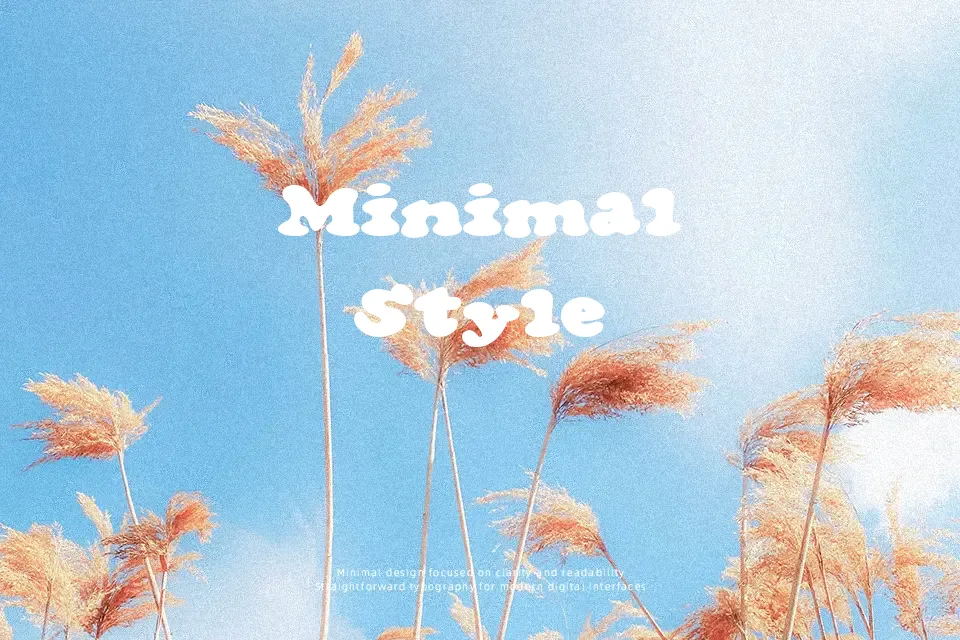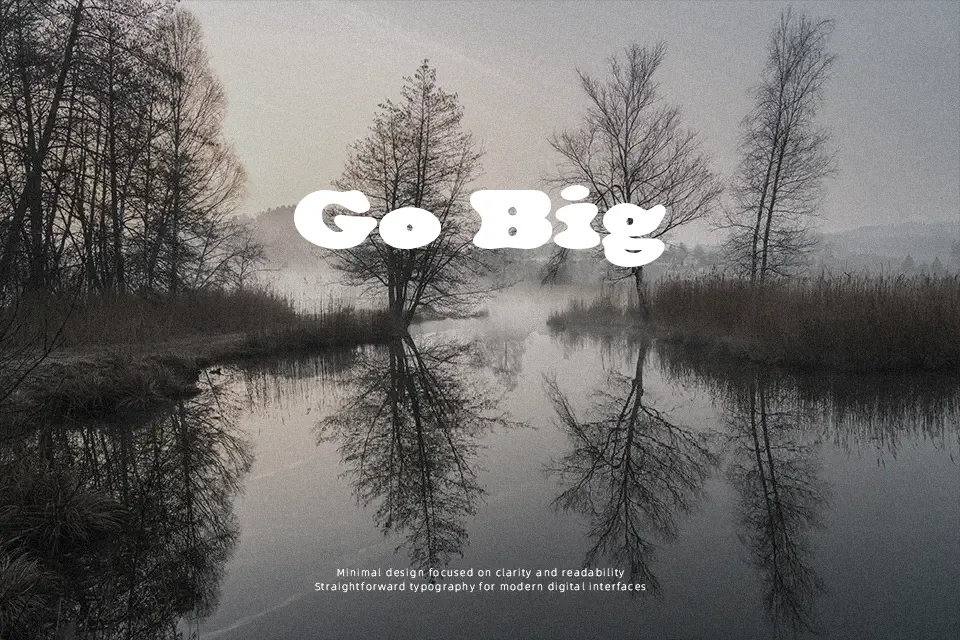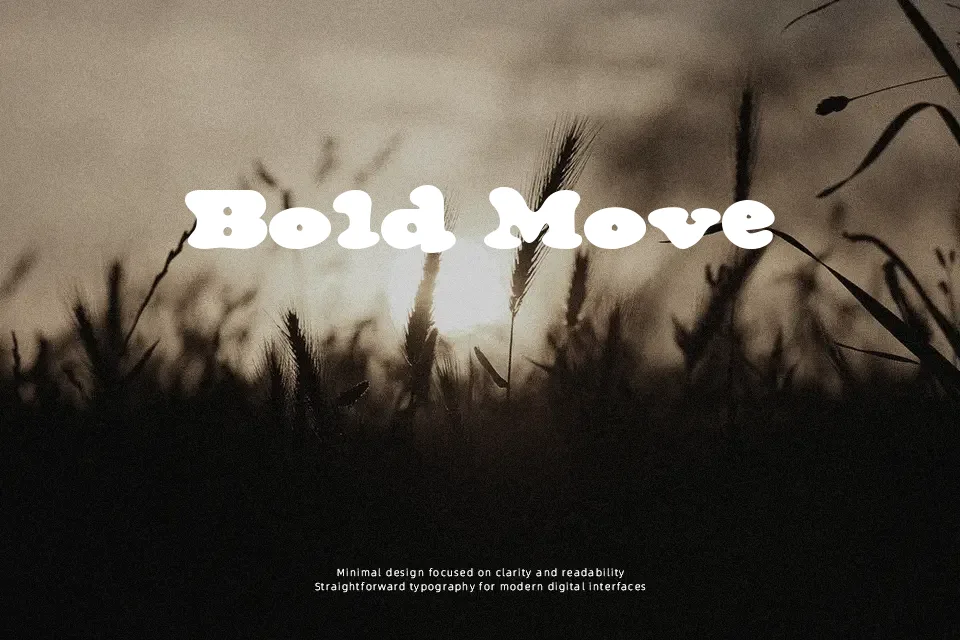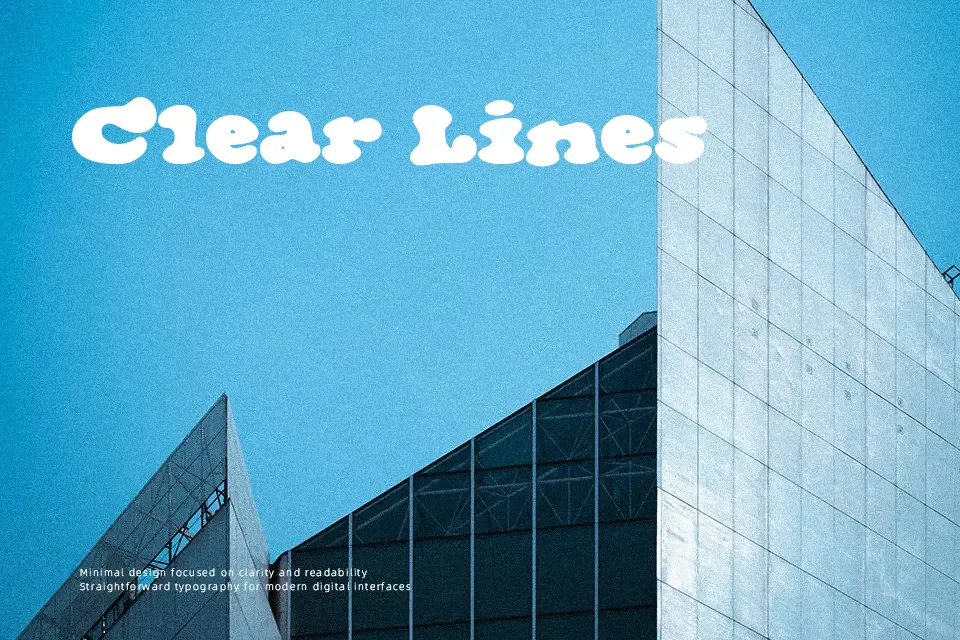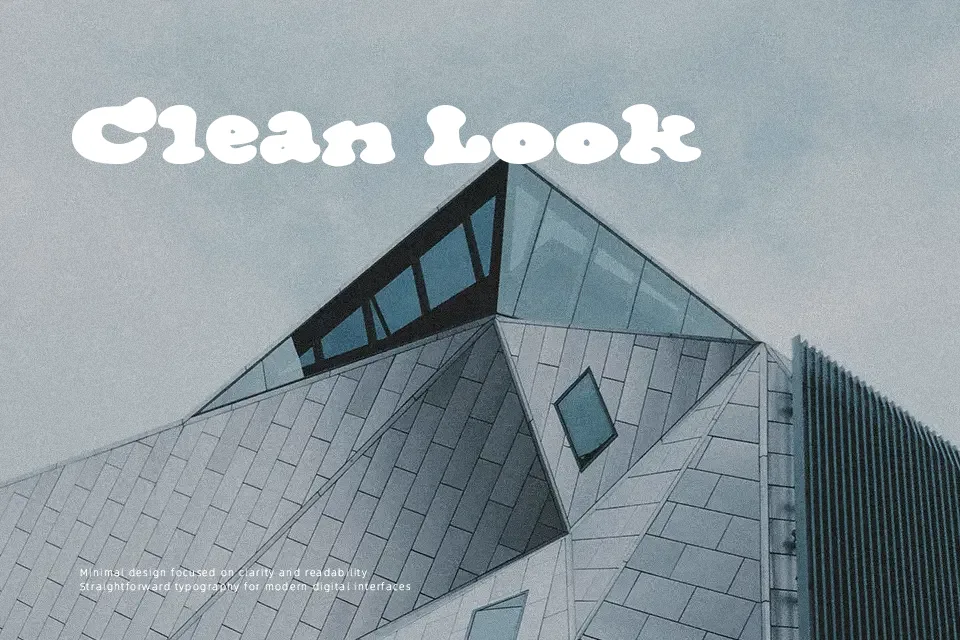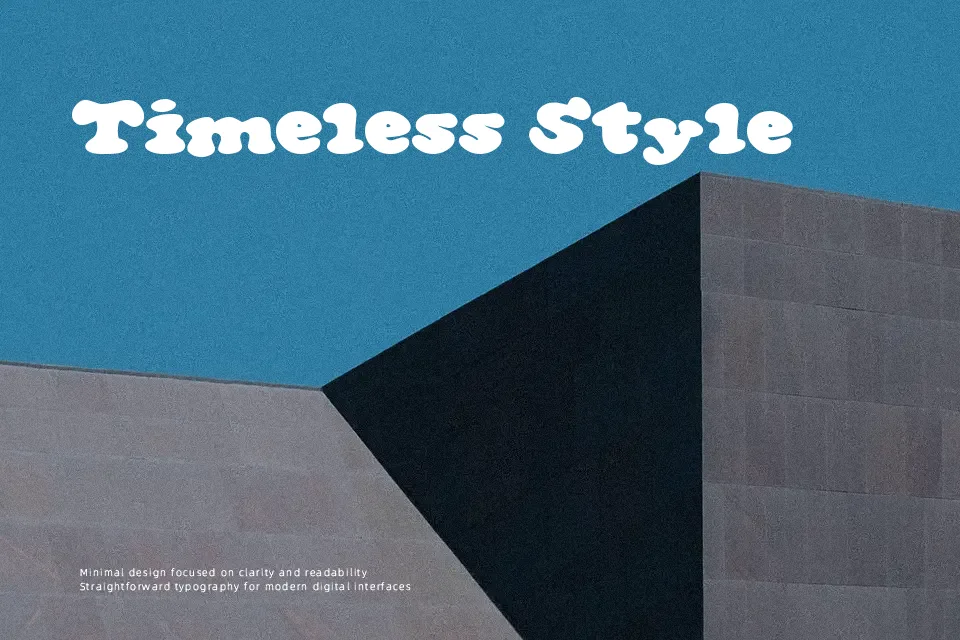
The Cream Shop Font
Built around heavy, rounded strokes and generous proportions, The Cream Shop Font establishes an assertive visual rhythm suited for large-scale titling and commercial branding. The letterforms display soft terminal curves paired with low stroke contrast, producing compact, uniform spacing that remains legible across short promotional headlines. While these bold contours provide immediate graphic punch in logo design and merchandise graphics, the dense silhouette significantly reduces clarity when applied to small captions or continuous editorial layouts. For designers seeking punchy display type, the robust character structure balances playful vintage personality with solid headline presence.
– retail packaging labels
– poster titles
– dessert brand logos
– promotional apparel graphics
– long paragraph text
– small interface labels
– dense editorial layouts
– technical documentation